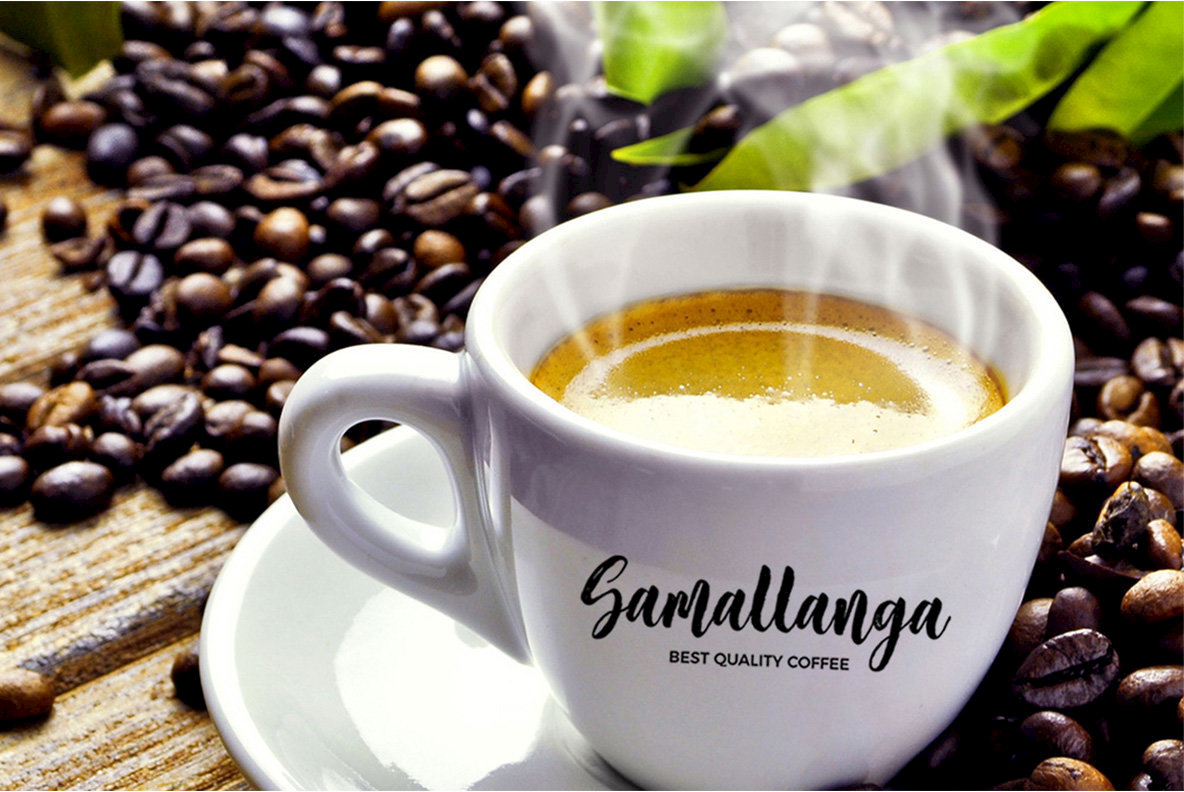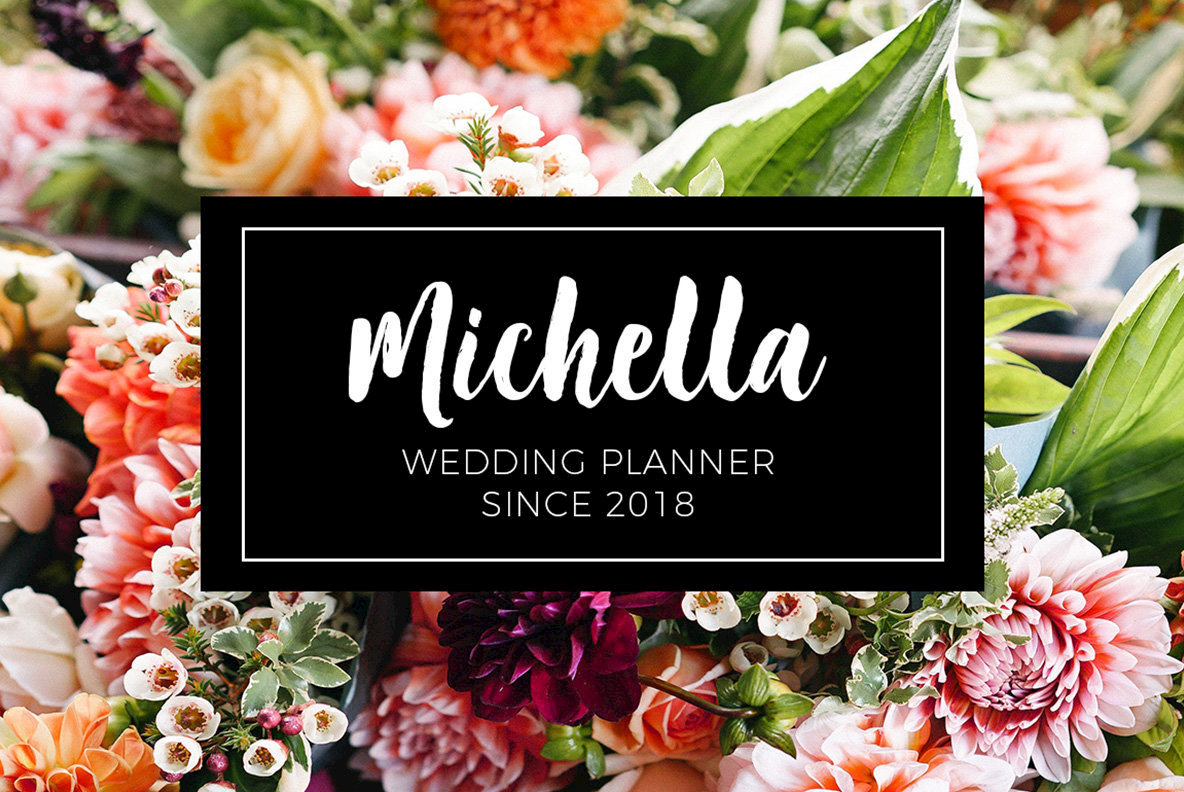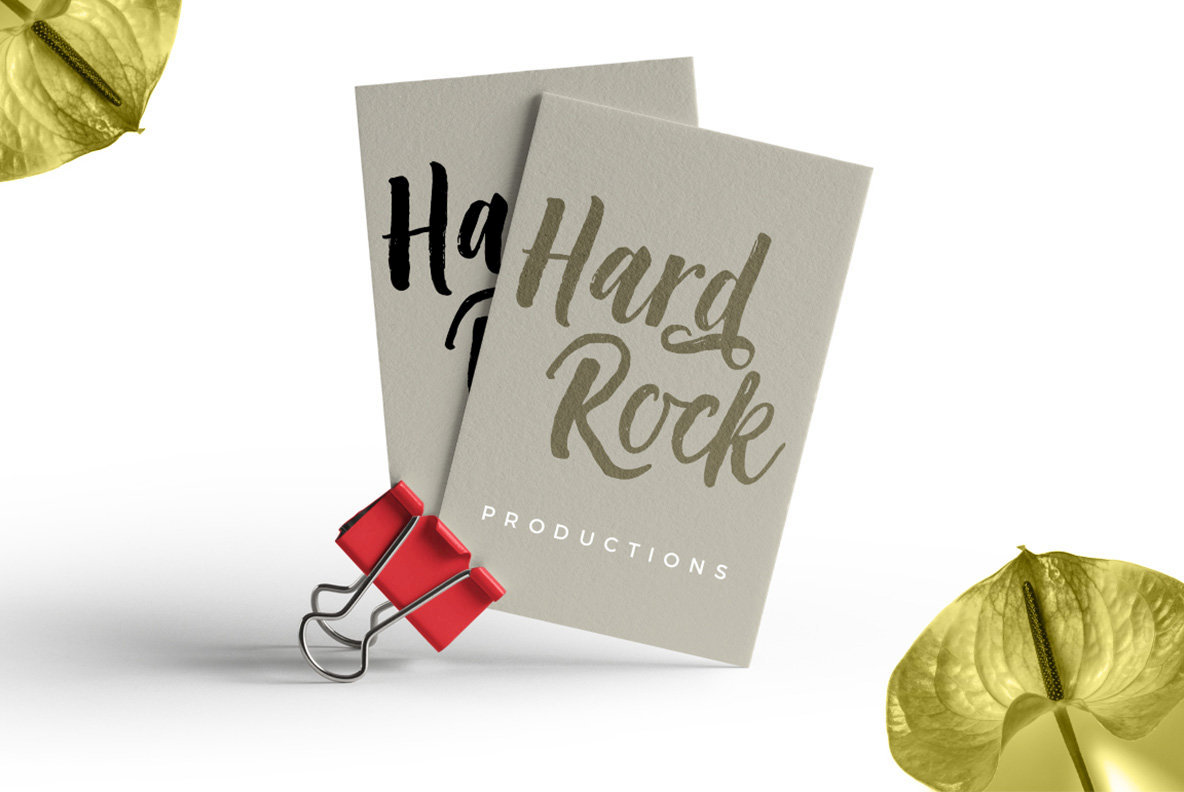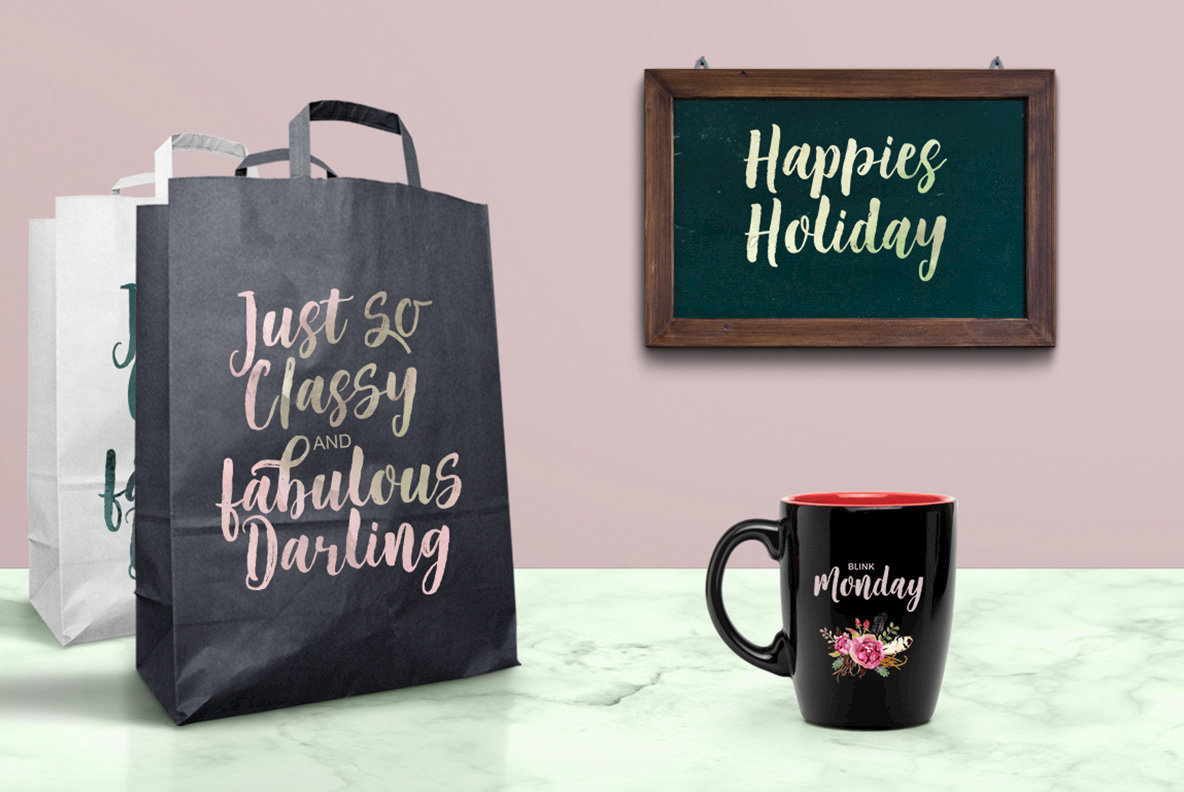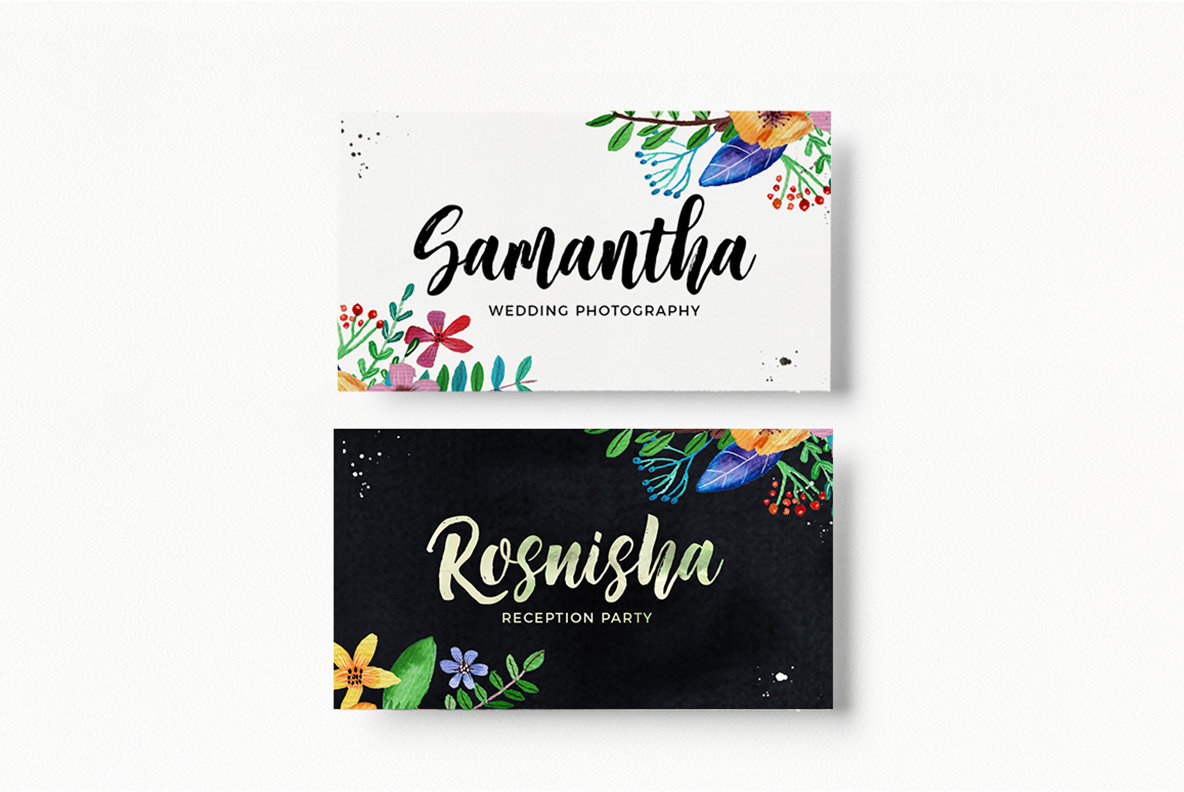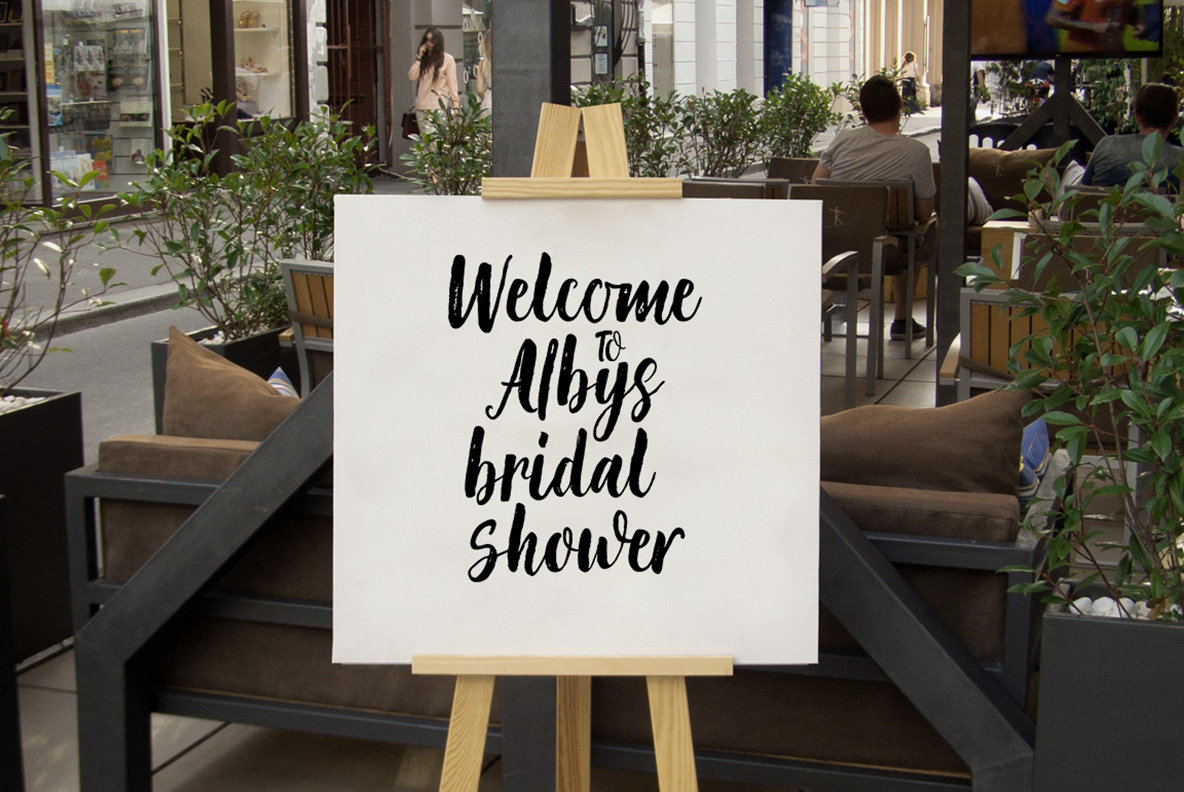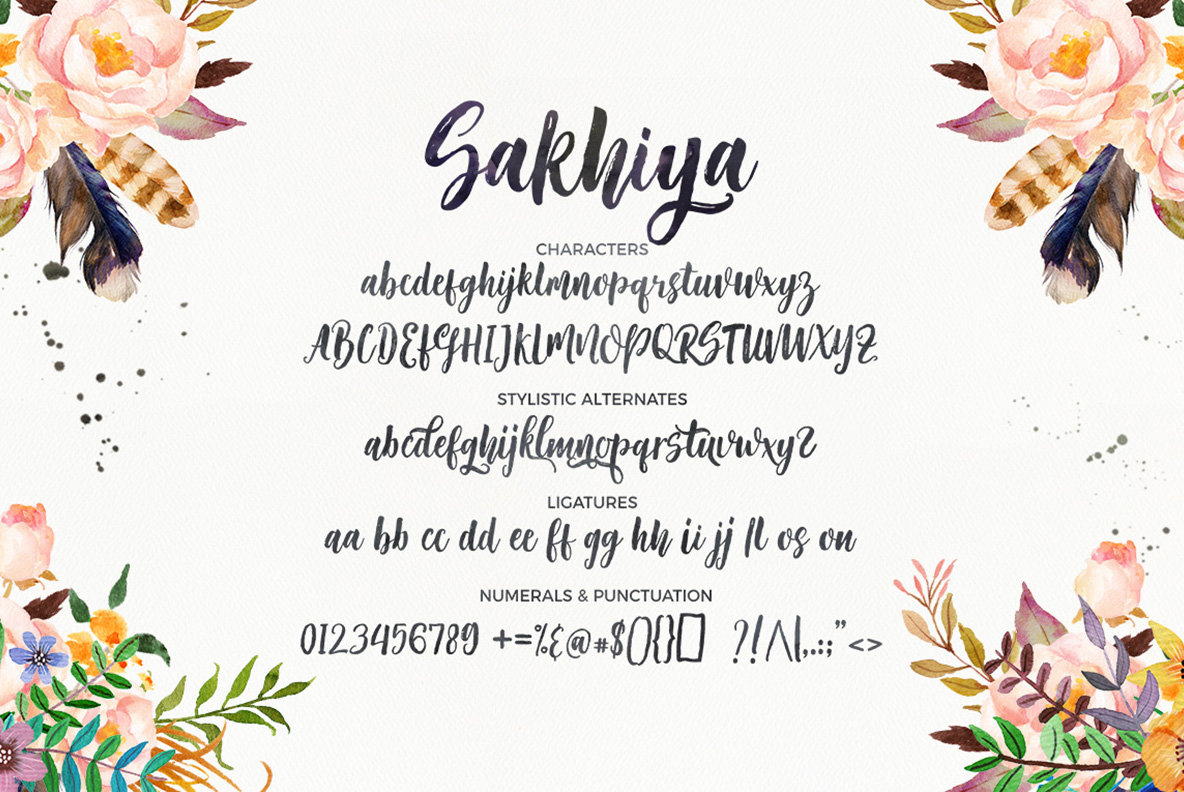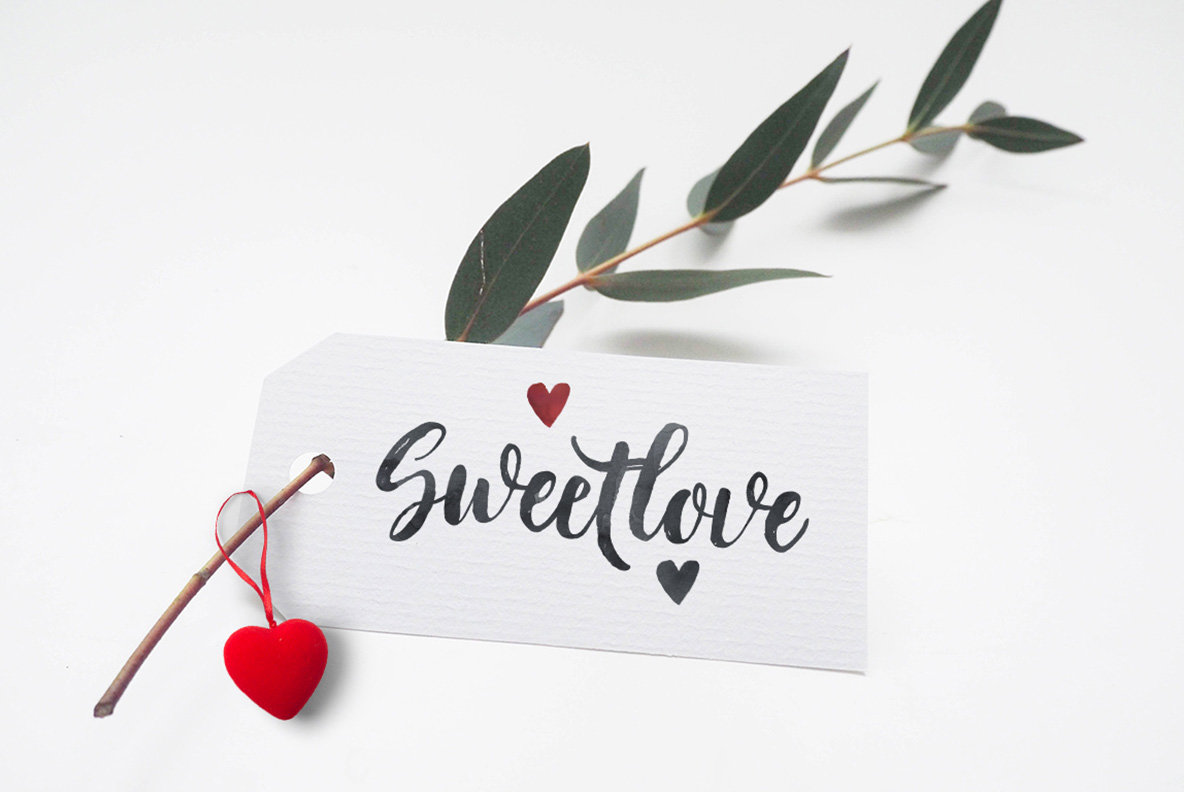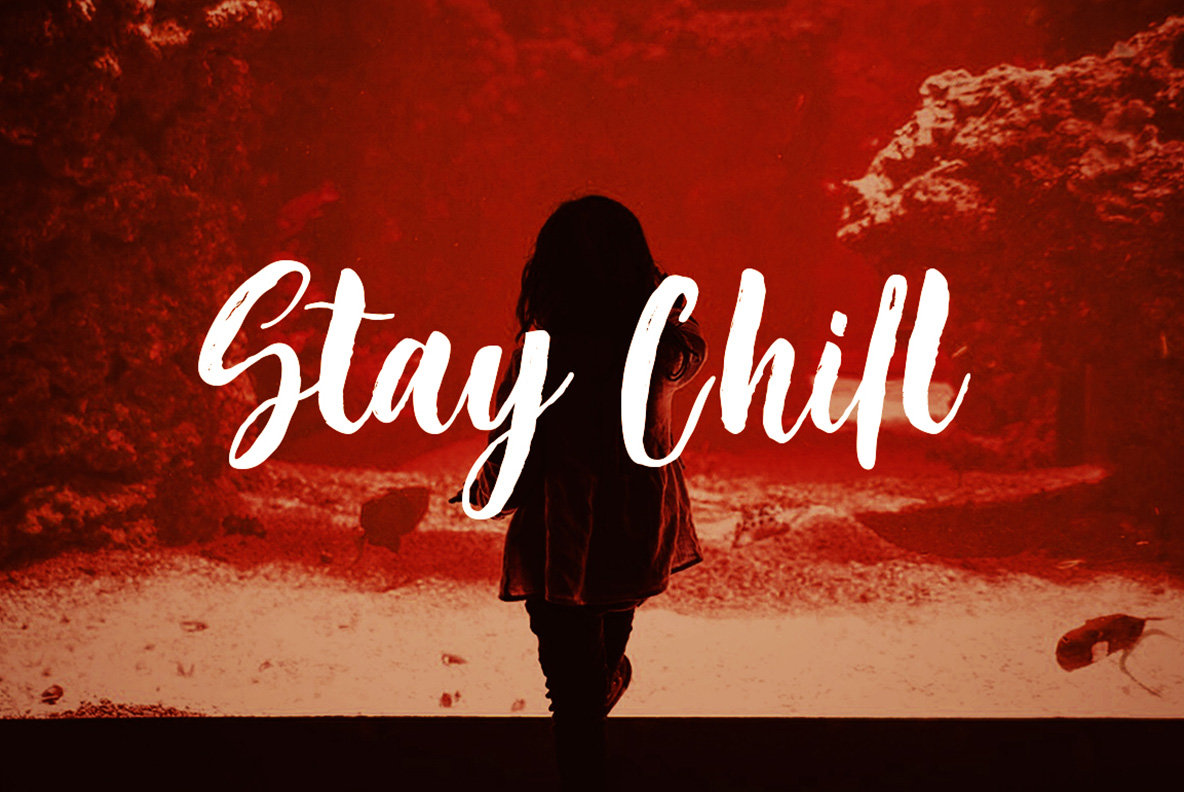
Sakhiya Script Font
Sakhiya
This handwritten script font, Sakhiya Script, captures the fluid elegance of signature styles with an inherent organic touch. Designed to be friendly and accessible, its versatile form makes it a favorite for brand projects, logos, product packaging, and more. Whether it’s for posters or invitations, the warm and expressive nature of Sakhiya Script promises to add personal charm to any project.Sakhiya Script: A Flowing Handwritten Font